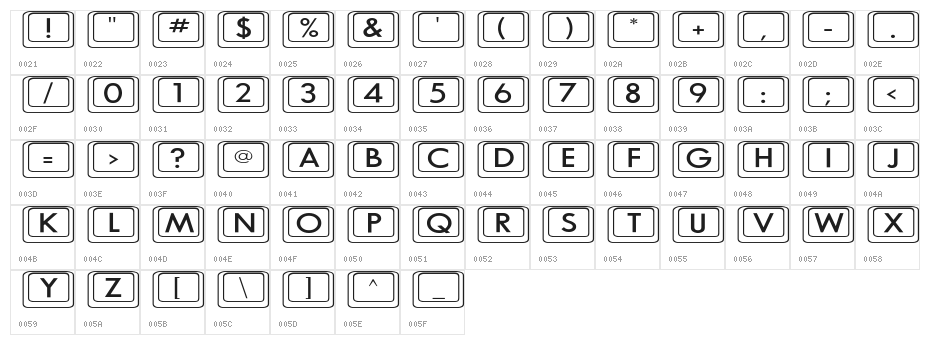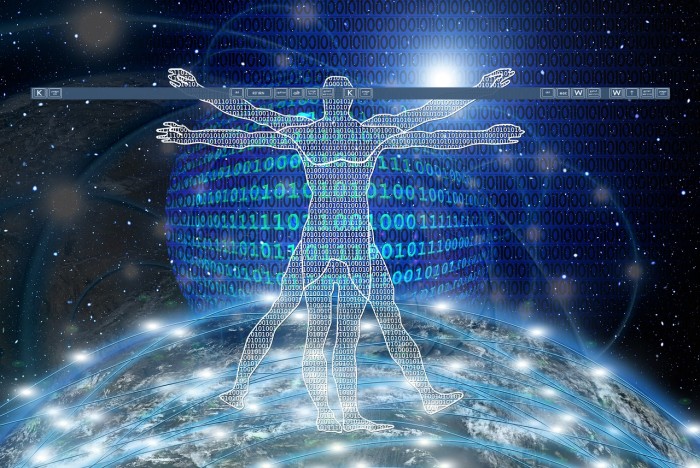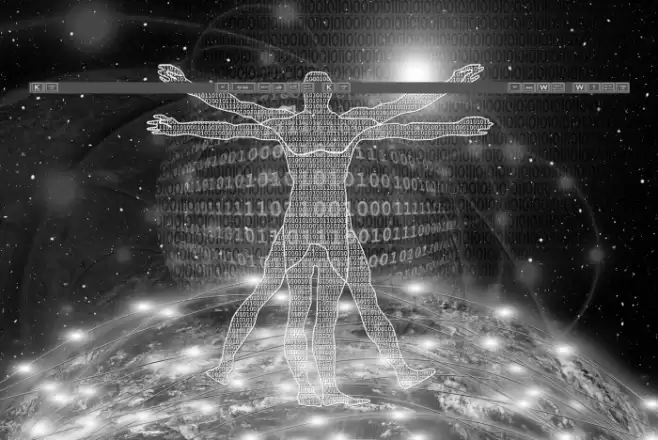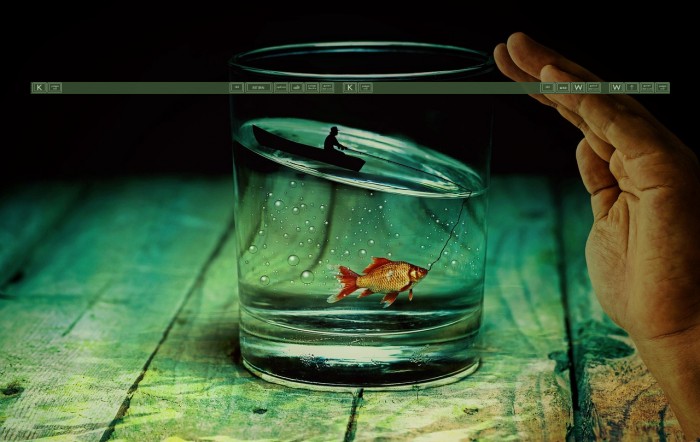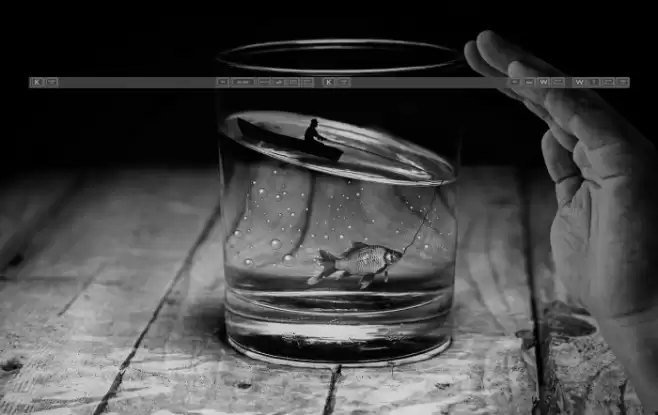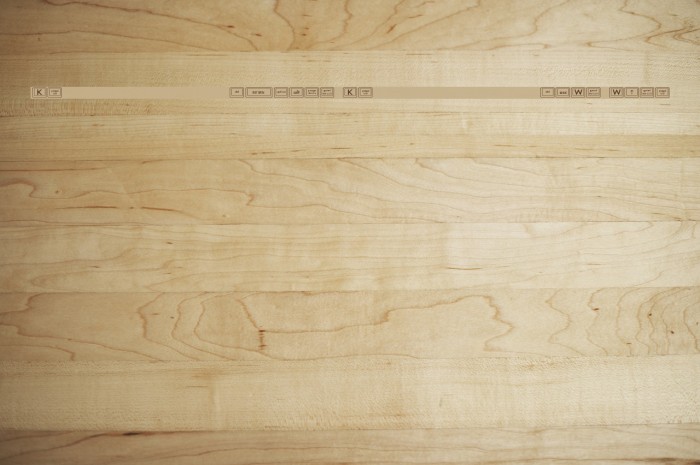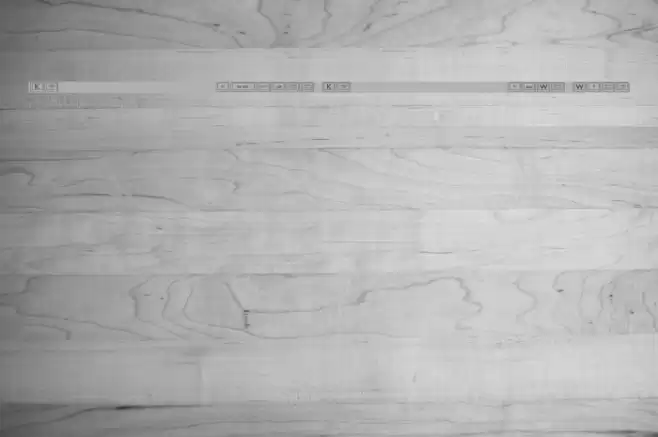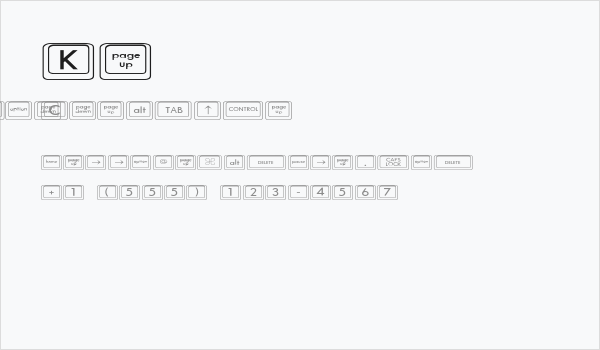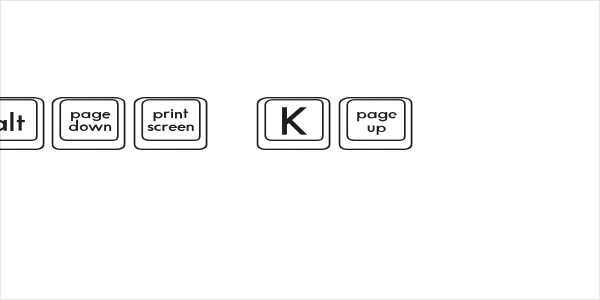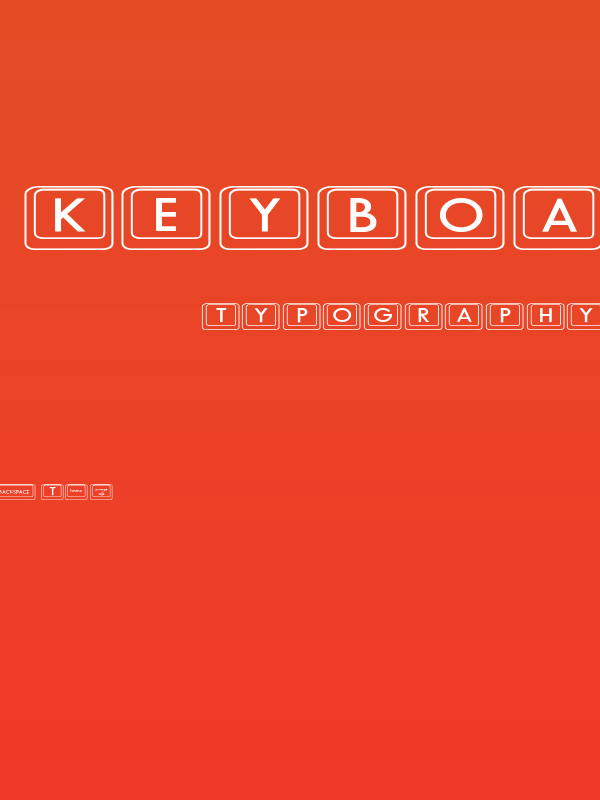
Keyboard KeysWd Wide Font
Keyboard KeysWd Wide Description
This font is designed to mimic the appearance of keyboard keys, featuring bold, square outlines around each character. The letters and numbers are centered within these outlines, creating a uniform and structured look. The characters are sans-serif, with clean and straight lines, providing a modern and technical feel. The font includes uppercase letters, numbers, and a variety of special characters, all enclosed in their respective key-like boxes. This design is reminiscent of a computer keyboard, making it ideal for digital or tech-related projects. The spacing between characters is consistent, ensuring readability and a cohesive appearance.